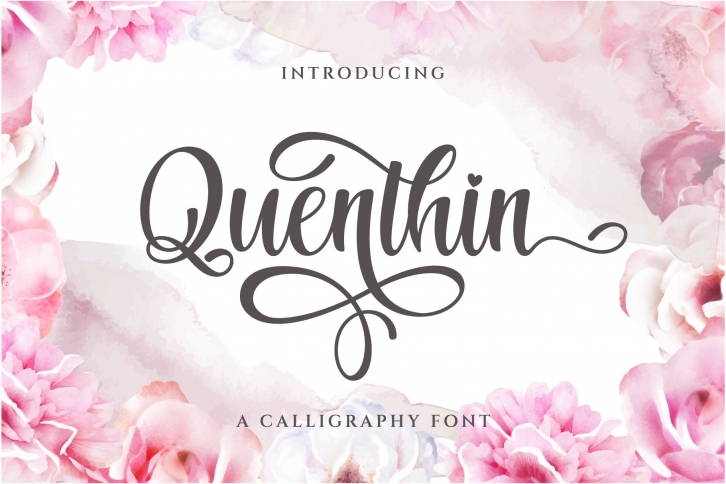
Quenthin is a beautiful font that was designed by Graphicxell. It's a great choice for designers and creatives who need such a font. It was released on September 20, 2020 and the file size is 9.17 MB. Quenthin may give a more youthful, expressive and casual look to your project. It is a very beautiful, refined, elegant, and high-quality font.